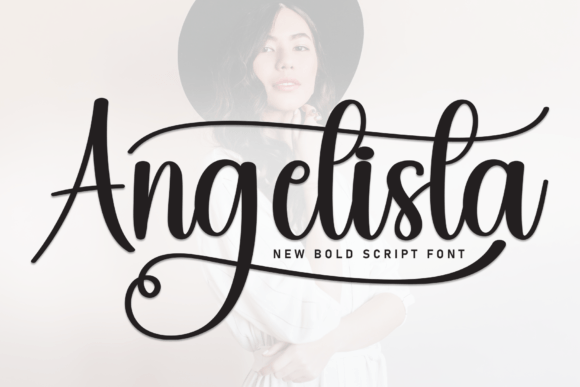
The Sweet Charm of Angelista Font: A Designer’s Delight
I’ll never forget the time I was working on a wedding invitation project, and my client specifically asked for a font that would make the invitation feel like a warm hug. I scoured the internet, tried out countless fonts, but nothing seemed quite right. That was until I stumbled upon Angelista Font. This sweet and delicate handwritten font instantly captured the romantic, personalized feel my client was looking for. In this article, I’ll share my experience with Angelista Font, its features, and how to make the most of it in your designs.
An Honest Review of Angelista Font
- ✨ Sweet and delicate: Angelista Font has a charming, dainty feel that’s perfect for creating romantic and personalized designs.
- ✅ Highly versatile: This font can be used for a wide range of projects, from wedding invitations and cards to branding and packaging.
- 💕 Emotional connection: The font’s joyful and whimsical feel helps create an emotional connection with your audience, making your designs more relatable and engaging.
While Angelista Font is a beautiful addition to any design project, there are a few things to keep in mind:
- ⚠️ Legibility at small sizes: As with many script fonts, Angelista may lose legibility when used at very small sizes. Make sure to test the font at different sizes to ensure it works for your project.
- 🤔 Limited use in body text: While Angelista is perfect for headings and titles, it may not be the best choice for body text due to its script nature. Consider using a complementary font for longer blocks of text.
A Practical Guide to Using Angelista Font
- Explore the font’s stylistic alternates and swashes to add more personality to your design.
- Use the font’s OpenType features to create beautiful, professional-looking documents.
The Story Behind Angelista Font
Angelista Font was designed with love and care by a talented font designer who wanted to create a font that would evoke feelings of joy and romance. The designer’s inspiration came from traditional handwritten scripts, combined with a modern twist to make the font fresh and exciting.
Q: What type of projects is Angelista Font best suited for?
A: Angelista Font is perfect for wedding invitations, cards, branding, packaging, and any other design that requires a romantic, personalized touch.